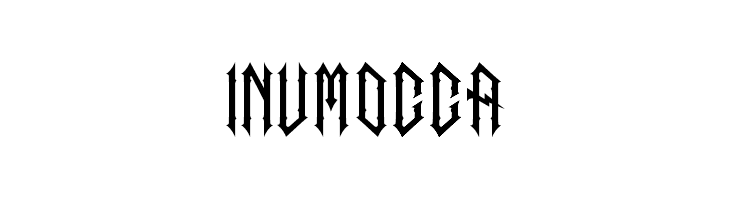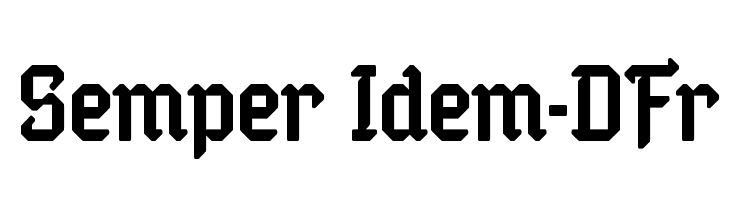
( Fonts by Casady & Greene )
A bold, modern sans-serif font with geometric influences and rounded edges.
( Fonts by Toto )
A bold, futuristic font with geometric and digital influences.
( Fonts by www.fugit-tempus.de )
A bold, geometric font with Gothic influences and angular characters.
( Fonts by Dieter Steffmann )
A bold, gothic-style font with blackletter influences and dramatic strokes.
( Fonts by Dieter Steffmann )
A classic serif font with calligraphic influences and elegant, angular serifs.
( Fonts by Manfred Klein - manfred-klein.ina-mar.com )
A bold blackletter font with sharp, angular lines and Gothic influences.
( Fonts by Manfred Klein - manfred-klein.ina-mar.com )
A bold, angular font with geometric influences, ideal for impactful designs.